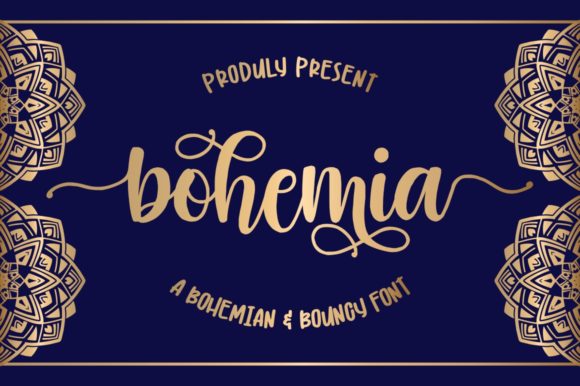
Bohemia Font
Prepare to be enchanted by Bohemia Font, a breathtaking and sophisticated script brimming with whimsical charm. Its graceful lines and alluring swashes will captivate your senses, transforming your designs into exquisite masterpieces. Let Bohemia Font ignite your creativity and add a touch of magic to every project.
Indulge in the boundless possibilities that Bohemia Font offers. Its enchanting scripts are a kaleidoscope of elegance, perfect for invitations, branding, social media, and more. With Bohemia Font, your designs will leave an indelible mark, captivating audiences with their captivating beauty and undeniable allure.
Unleash your inner artist and let Bohemia Font guide you on a creative journey. Its versatility knows no bounds, accommodating a myriad of styles and themes. From delicate wedding invitations to bold posters, Bohemia Font will effortlessly enhance your designs, adding a touch of sophistication and timeless grace.